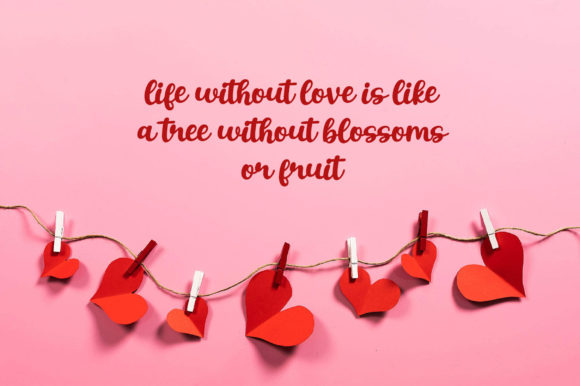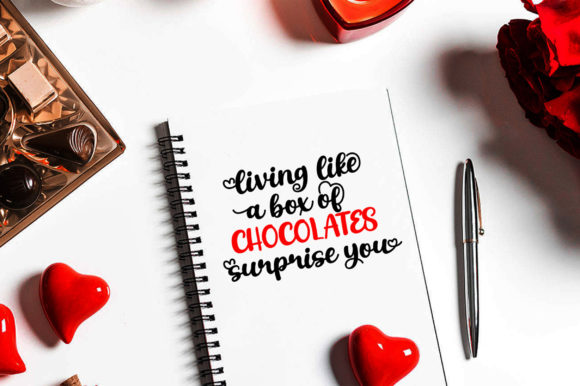
My Own Love Font
db-ku.com - Script & Handwritten -- My own love is a cute handwritten fonts. Its sweet and lively shape makes this font a great choice to brighten up your designs.